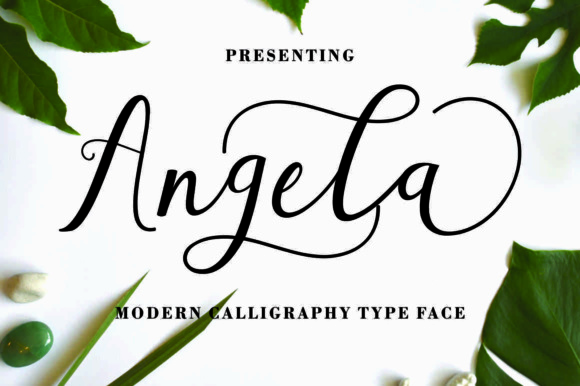
Embark on a visual journey with Angela Script Font, a mesmerizing creation by InkwellTypeCo. This enchanting script font exudes modern elegance with a touch of feminine charm. Its delicate hand scratches add a captivating layer of texture and depth, inviting you to explore new realms of creativity.
Unleash the boundless potential of Angela Script Font, a versatile and awe-inspiring font family that caters to a myriad of design endeavors. Embellish your wedding invitations with enchanting calligraphy, transform your social media posts into works of art, or captivate your audience with stunning blog headers. The possibilities are as limitless as your imagination.
Immerse yourself in the world of Angela Script Font and discover a treasure trove of beautiful swashes, each meticulously crafted to lend an air of sophistication and grace to your designs. These elegant flourishes will elevate your projects to new heights, leaving a lasting impression on your audience.
With its natural and trendy style, Angela Script Font seamlessly adapts to a wide spectrum of design concepts. Create eye-catching logos that exude professionalism, design business cards that radiate personality, or craft stunning posters that command attention. The versatility of Angela Script Font knows no bounds.
Step into the spotlight with Angela Script Font and let your designs shine. Its captivating charm will leave your audience spellbound, creating a lasting emotional connection that sets you apart from the ordinary. Embrace the power of Angela Script Font and transform your creative visions into reality.